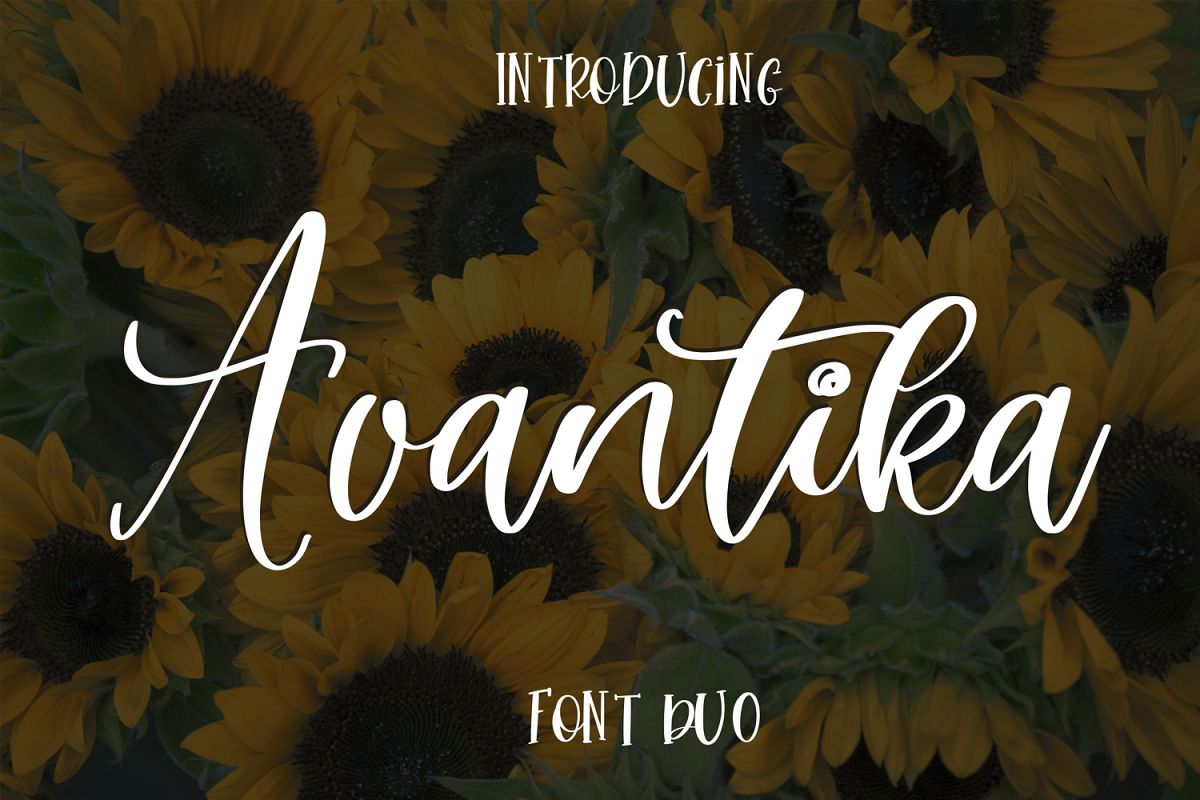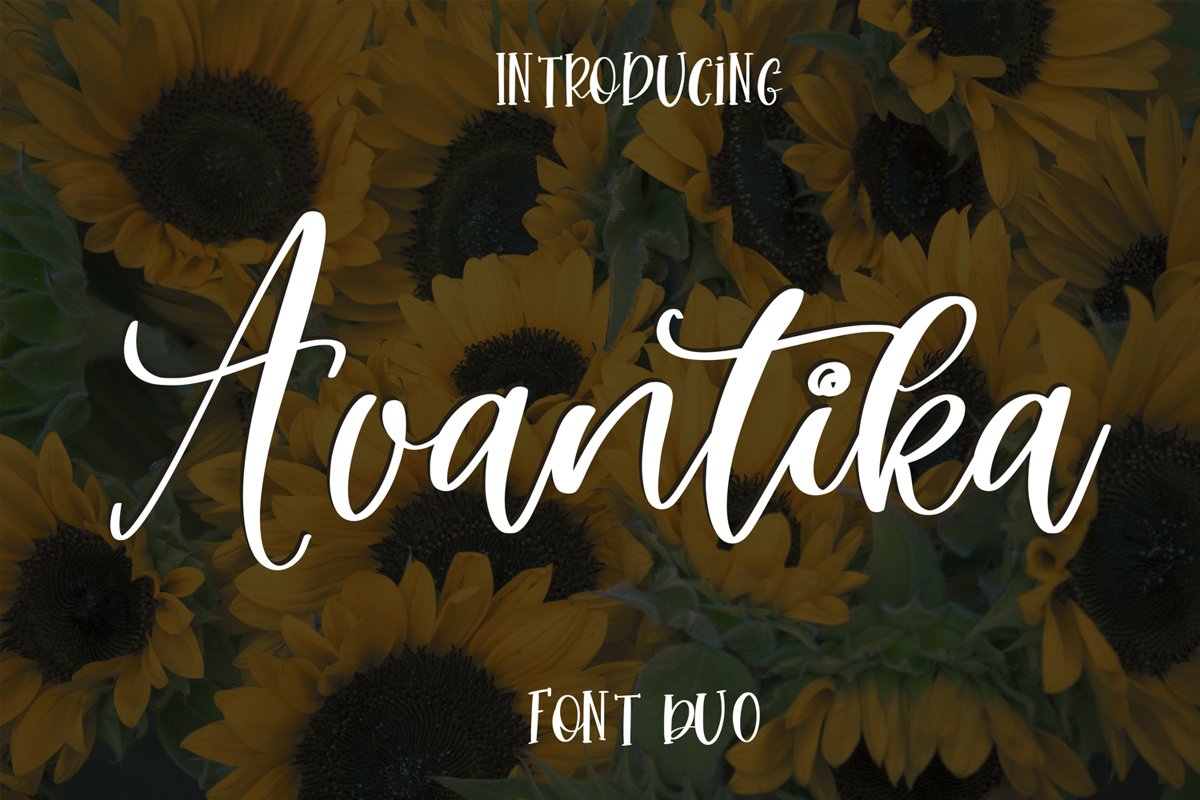
Avantika Font Duo - it'a a lovely font duo Avantika Font Duo .otf - standart uppercase, lowercase, numbers, punctuation Avantika Font Duo .ttf - standart uppercase, lowercase, numbers, punctuation Avantika Font Duo -Script.otf - standart and alternate uppercase, lowercase, numbers, punctuation and ligature Avantika Font Duo Stn-Script.ttf - standart uppercase, lowercase, numbers, punctuation and ligatures Avantika Font Duo Alt-Script.ttf - alternate uppercase and lowercase